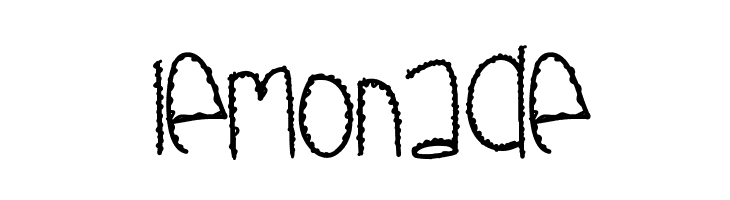
A display font featuring artistic female silhouettes as characters.
An intricate, web-like decorative font with a hand-drawn appearance.
Cartoon character heads as letterforms in a decorative style.
A playful and decorative icon set of alien heads and UFO symbols.
A whimsical font inspired by sewing, featuring needle and thread motifs.
A decorative font with stylized animal head motifs, ideal for creative display use.
A playful, hand-drawn font with decorative, stitched-like details.
A bold pictogram font of human heads with conceptual icons.